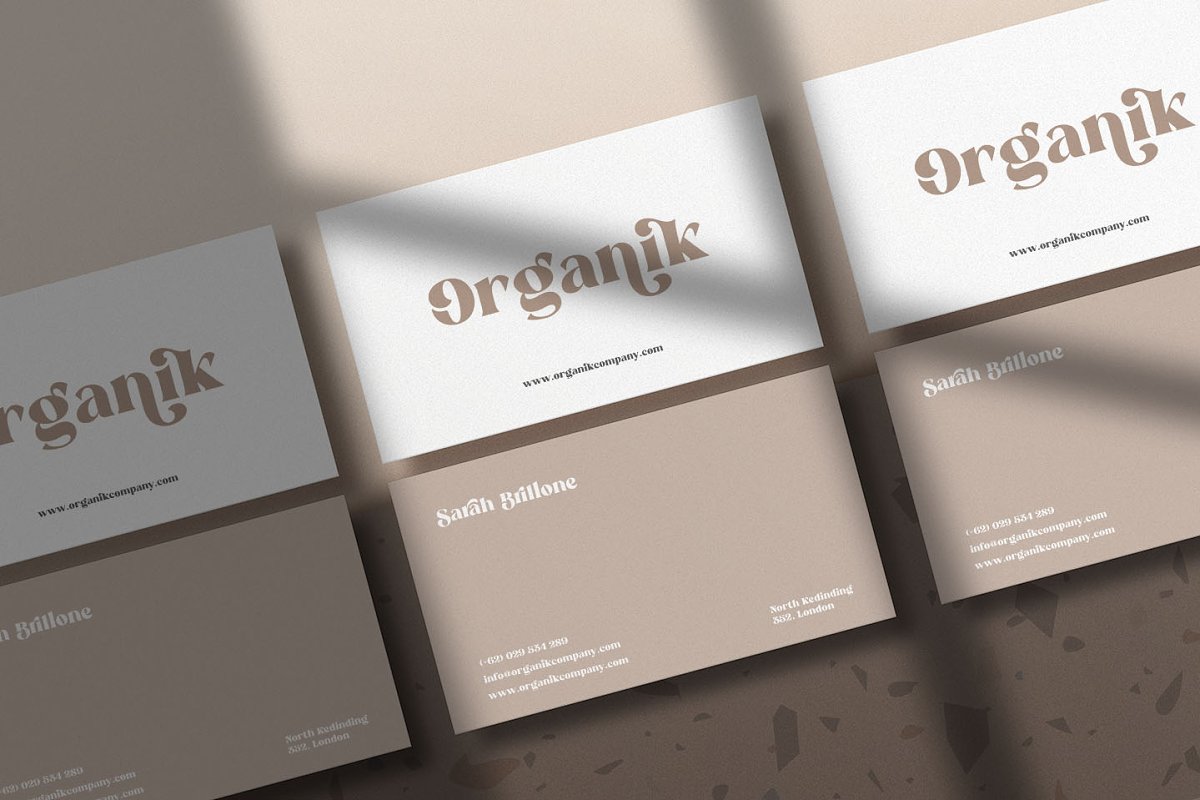
Reikna Classy Bold Serif Font Family Free Download
About the Reikna Classy Bold Serif Font
Thanks for checking out Reikna Font! Classy Bold serif font with beautiful alternate characters and also ligature which makes it easy for you to create a logo for your personal branding and your business beautifully, Reikna is perfect for many different projects such as logos & branding, invitation, stationery, wedding designs, social media posts, advertisements, printed quotes, product packaging, product designs, label, photography, watermark, special events or anything